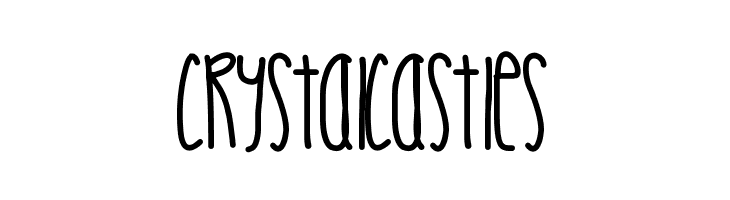
A playful, hand-drawn font with tall, narrow characters and whimsical doodles.
A bold, hand-drawn font with a playful and whimsical style.
A playful, hand-drawn font with tall, narrow letters and a whimsical style.
A playful, handwritten font with a whimsical and energetic style.
A playful, handwritten font with a whimsical and doodle-like style.
A playful, handwritten font with a bold and whimsical style.
A bold, playful handwritten font with a whimsical and artistic style.
A playful, hand-drawn font with a whimsical and childlike charm.
A playful handwritten font with a casual and friendly style.